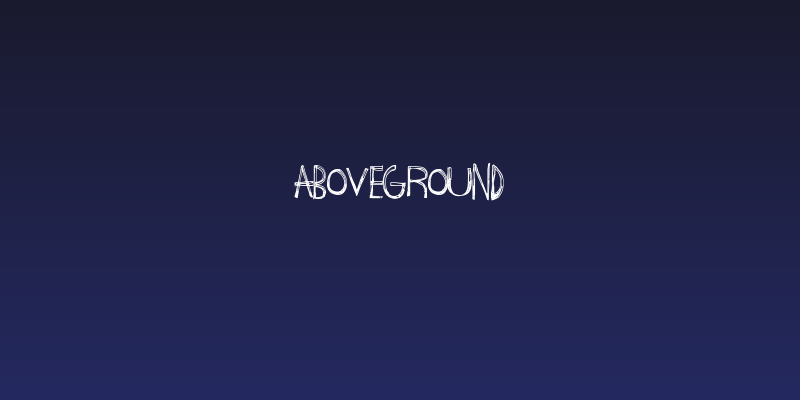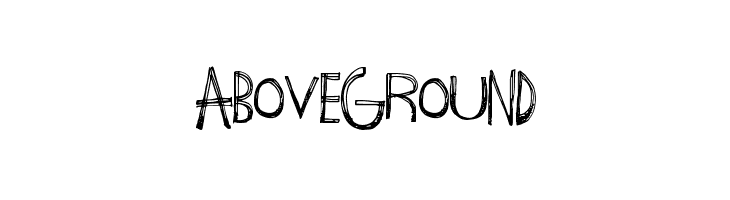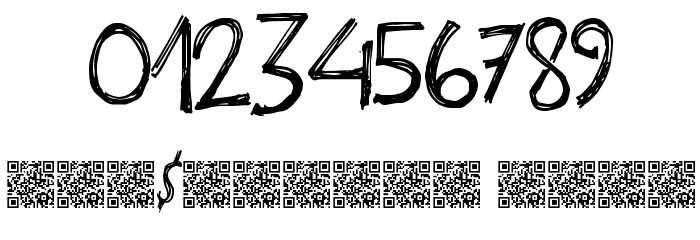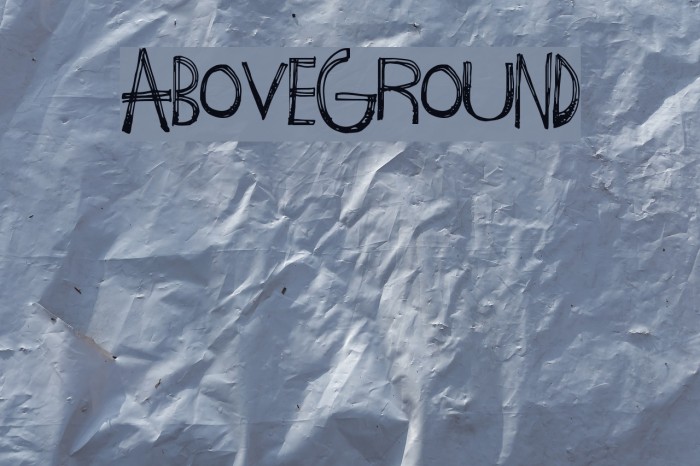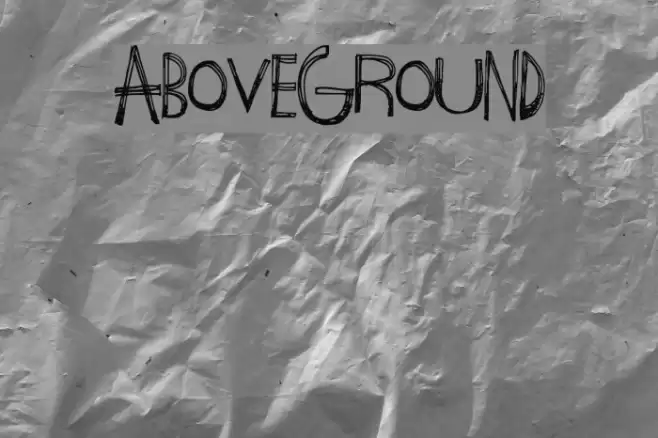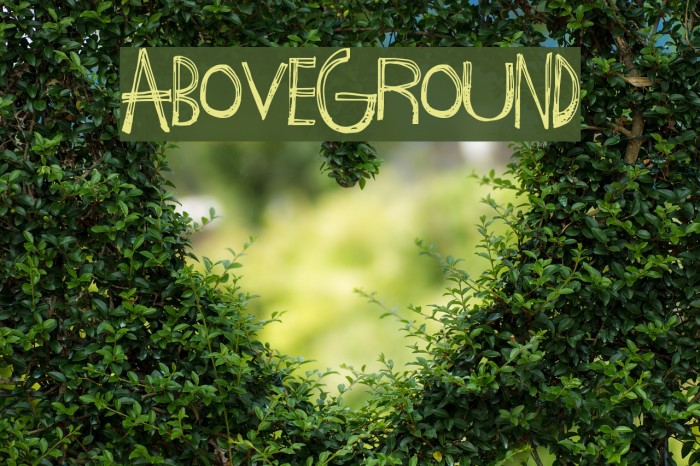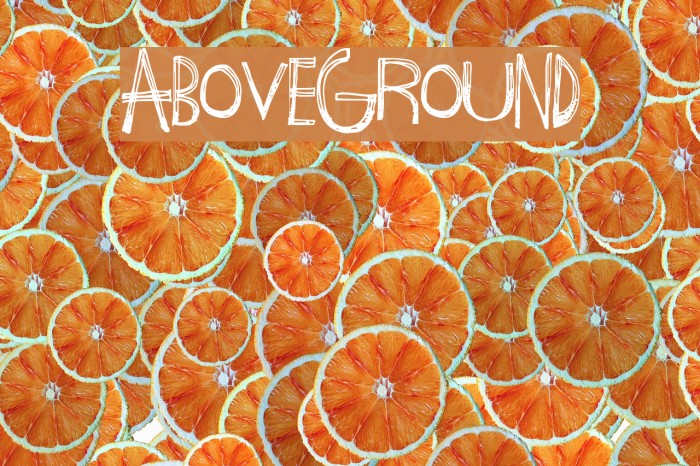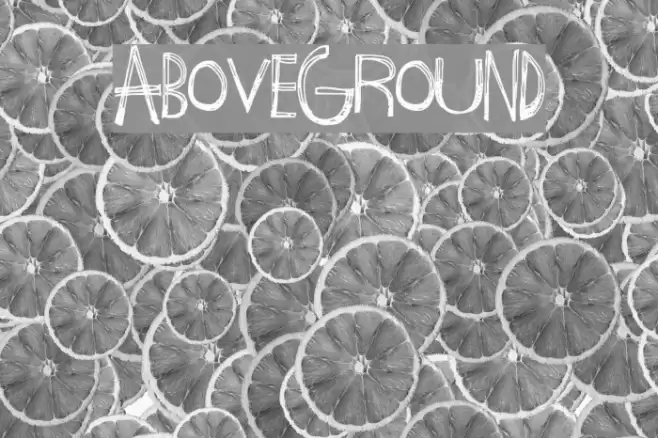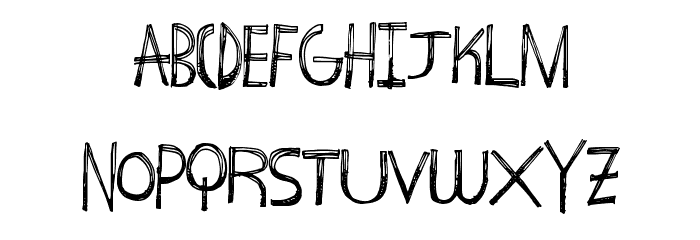
AboveGround Font
AboveGround Description
This font exhibits a playful and artistic style, characterized by its hand-drawn appearance. The letters are irregular and feature a sketch-like quality, with uneven strokes and a slightly rough texture. This gives the font a whimsical and informal feel, making it ideal for creative projects. The uppercase and lowercase letters maintain a consistent style, while the numbers and special characters complement the overall design. The font's unique aesthetic makes it stand out, adding a touch of personality and charm to any text.
| Overall Style | Artistic, Whimsical |
| Use Case | Headlines, Logos, Creative projects |
| Proposed Projects | Ideal for children's books, creative posters, playful branding, and artistic invitations. |